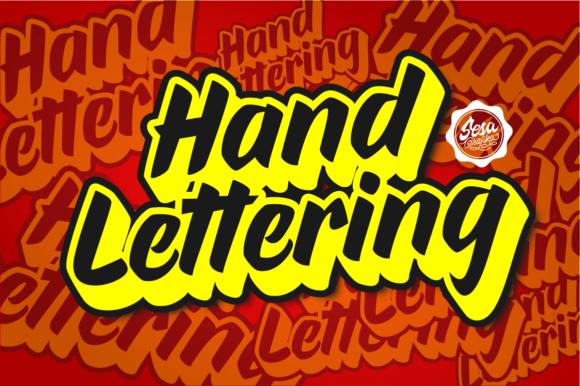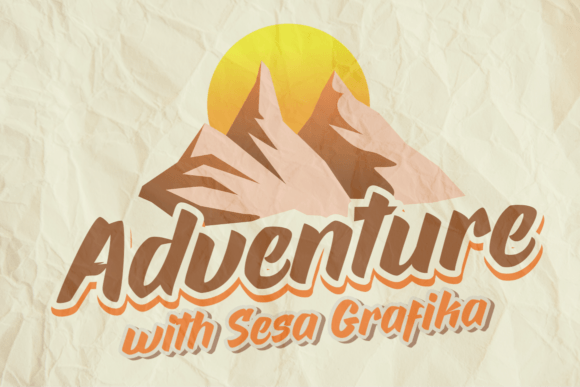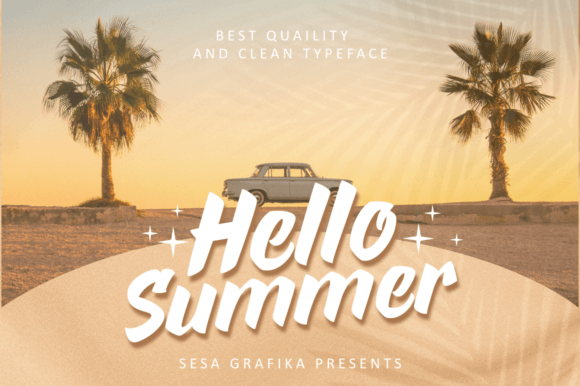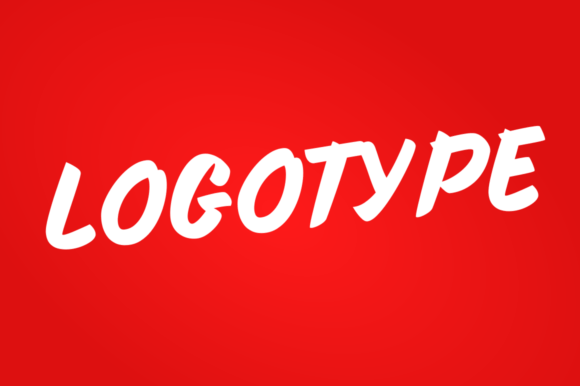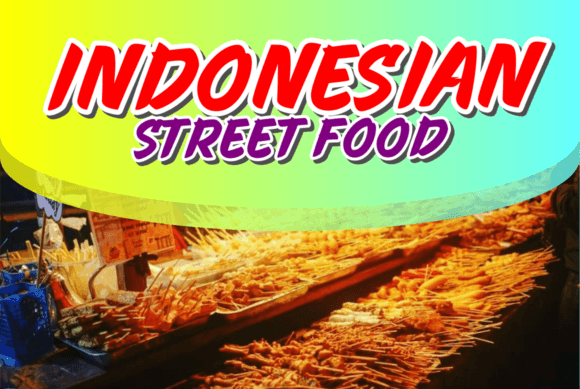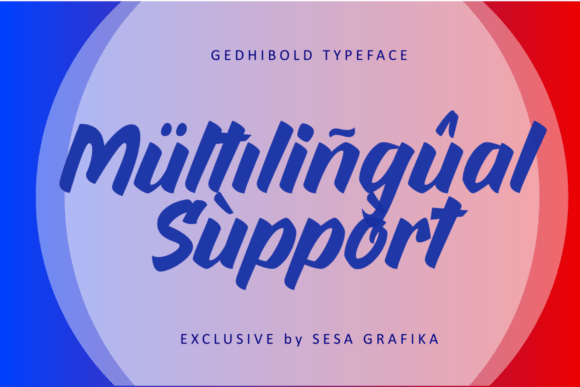
Introducing Gedhibold Font: The Ultimate Retro Groovy Display Font
Are you looking for a font that can add a special retro touch to your design ideas? Look no further than Gedhibold Font! This masterfully designed display font is perfect for bringing a groovy vibe to any project, from headlines and magazines to logos, branding, and more.
What is Gedhibold Font?
Gedhibold Font is a retro-style display font that is sure to become a true favorite among designers and crafters. Its unique and stylish letters are perfect for adding a touch of nostalgia and whimsy to any design. Whether you’re working on a wedding invitation, social media post, or product packaging, Gedhibold Font is the perfect choice.
Features of Gedhibold Font
- Retro Groovy Style: Gedhibold Font features a unique retro groovy style that is sure to turn heads.
- Display Font: This font is specifically designed as a display font, making it perfect for headlines, titles, and other large-format text.
- Handwritten Taste: Gedhibold Font has a handwritten taste that adds a personal touch to any design.
- Versatile: This font can be used for a wide range of projects, from wedding invitations and social media posts to product packaging and logos.
Uses of Gedhibold Font
Gedhibold Font is perfect for a variety of design projects, including:
- Headlines and Magazines: Add a retro touch to your headlines and magazine titles with Gedhibold Font.
- Logos and Branding: Use Gedhibold Font to create unique and memorable logos and branding materials.
- Wedding Invitations: Add a touch of whimsy and romance to your wedding invitations with Gedhibold Font.
- Social Media Posts: Use Gedhibold Font to create eye-catching social media posts that stand out from the crowd.
- Product Packaging: Add a retro touch to your product packaging with Gedhibold Font.
- Labels and Photography: Use Gedhibold Font to create stylish labels and watermarks for your photos.
- Invitations and Stationery: Add a personal touch to your invitations and stationery with Gedhibold Font.
Why Choose Gedhibold Font?
There are many reasons to choose Gedhibold Font for your design projects. Here are just a few:
- Unique Style: Gedhibold Font features a unique and stylish retro groovy design that is sure to turn heads.
- High-Quality: Gedhibold Font is a high-quality font that is designed to look great on any device or medium.
- Versatile: This font can be used for a wide range of projects, from print materials to digital designs.
Key Benefits for Designers and Crafters
- Add a Retro Touch: Gedhibold Font allows designers and crafters to add a retro touch to their designs.
- Stand Out from the Crowd: This font is unique and stylish, making it perfect for designers and crafters who want to stand out from the crowd.
- Easily Customizable: Gedhibold Font is easy to use and can be customized to fit any design style.
- Perfect for a Variety of Projects: This font can be used for a wide range of projects, from print materials to digital designs.
Overall, Gedhibold Font is a must-have for any designer or crafter looking to add a retro touch to their designs. With its unique style, ease of use, and versatility, this font is sure to become a favorite among creative professionals.